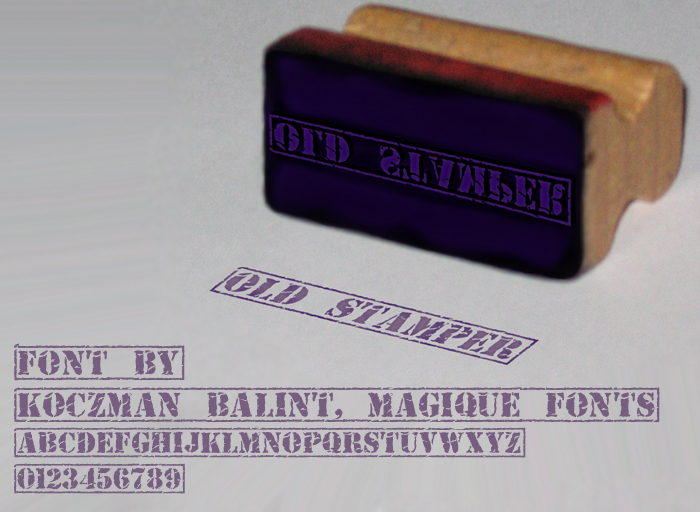
Old Stamper by Cpr. Sparhelt is a free eroded stencil font. Broad upright caps have chipped edges, broken strokes, and rough gaps that recall ink pressed onto battered crates or weathered signs.
Posters and merchandise make particularly good use of this distressed construction, especially for punk events, military-themed graphics, and rugged clothing labels. The same damaged stencil forms also suit game artwork and music packaging based on post-apocalyptic, protest, or underground subjects.
Old Stamper